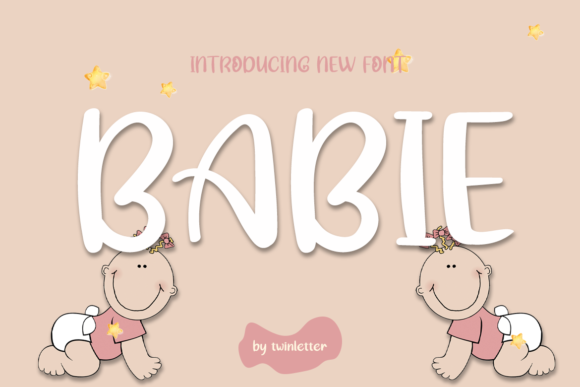
Step into a world of culinary delights, where flavors dance and fonts harmonize. Babie Font, the delectable display font, is ready to tantalize your taste buds and elevate your designs to gastronomic perfection. Crafted with love by the talented twinletter, Babie Font is a scrumptious visual treat that will leave you craving more.
Indulge in the sweetness of Babie Font, a font so charming and lovely, it's like biting into a freshly baked cookie. Its friendly and inviting nature makes it the perfect ingredient for any design recipe, adding a dash of whimsy and a heaping spoonful of delight. From tantalizing food packaging to mouthwatering restaurant menus, Babie Font is the secret ingredient that will make your designs sizzle.
The versatility of Babie Font is truly remarkable. It's like having a culinary toolbox filled with an assortment of flavors and textures, ready to elevate any design project. Whether you're creating packaging for artisanal chocolates, designing a menu for a trendy bistro, or crafting a logo for a bakery, Babie Font will add a touch of sweetness that will leave your audience craving more.
Unleash your imagination and let Babie Font be your culinary muse. Its natural and friendly style is a blank canvas, ready to be painted with your creative genius. From playful food illustrations to whimsical recipe books, Babie Font will transform your designs into delectable masterpieces.
So, embark on a culinary adventure with Babie Font and let your designs take center stage. Its enchanting charm will leave your audience hungry for more, eager to savor every bite of your creative vision. Babie Font is not just a font; it's a culinary experience that will satisfy your design cravings and leave you wanting seconds.